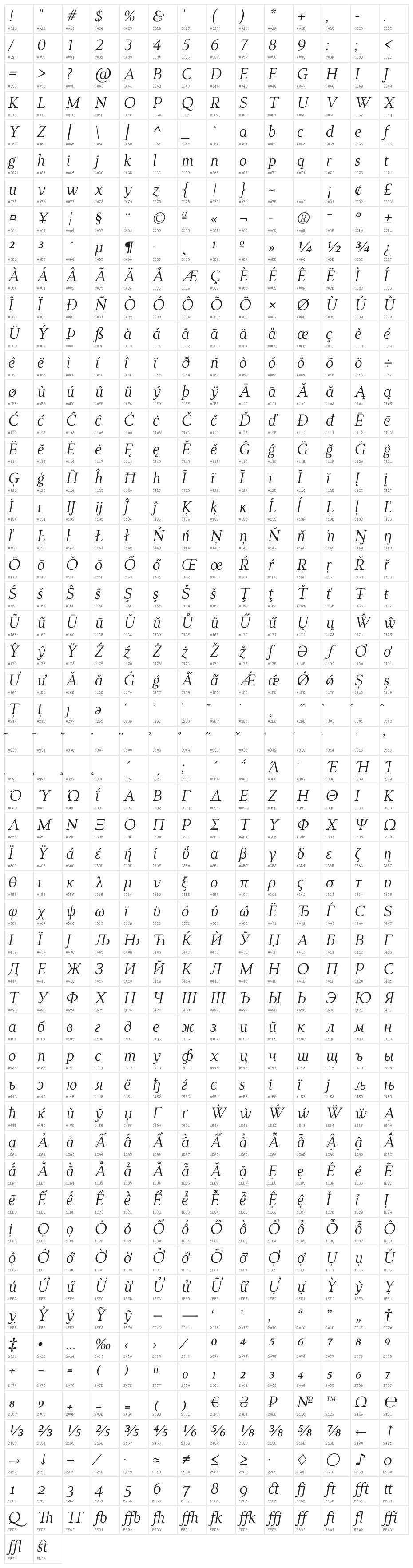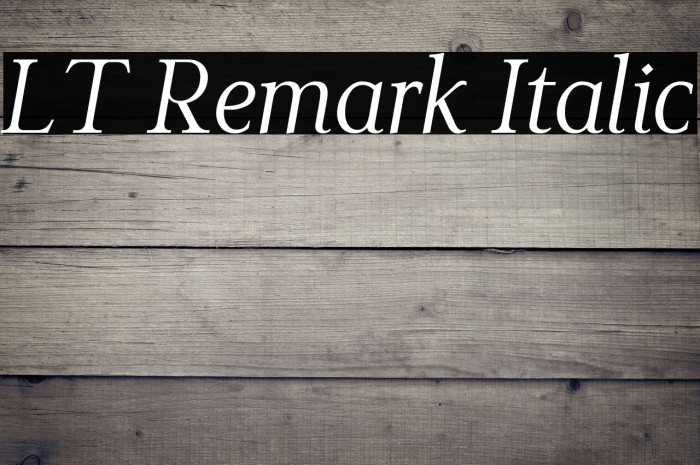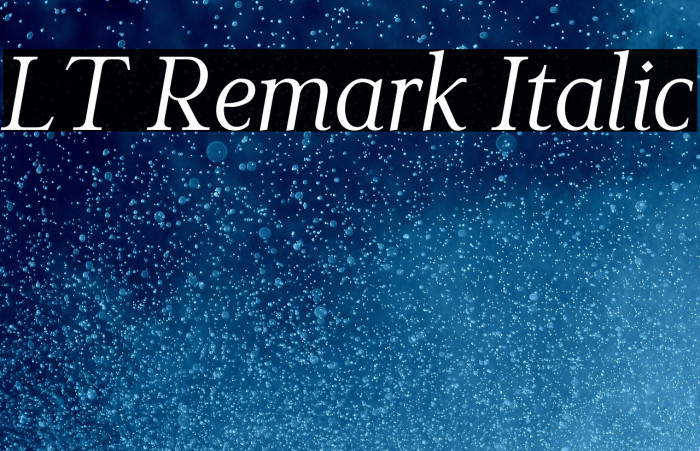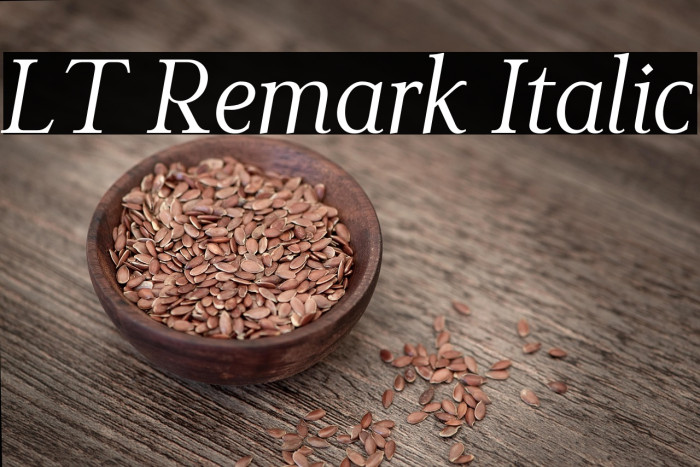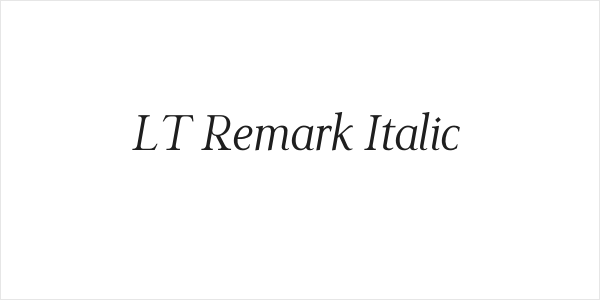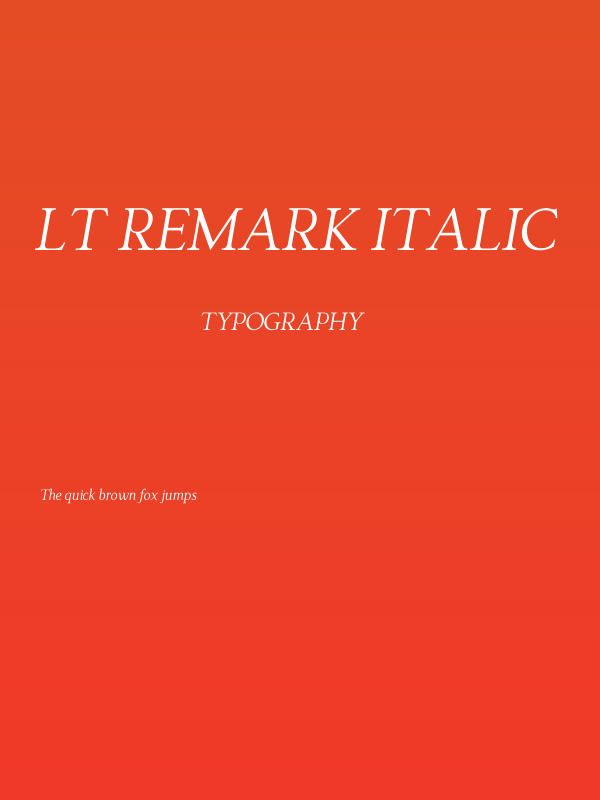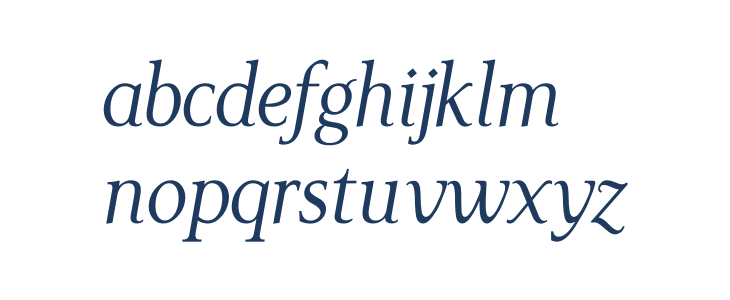
LT Remark Italic Font
LT Remark Italic Description
This font features an elegant and sophisticated italic style, characterized by its smooth and flowing letterforms. The serifs are subtle yet distinct, adding a touch of classic refinement. The uppercase letters are slightly taller than the lowercase, providing a balanced and harmonious appearance. The numerals are proportional, maintaining consistency with the overall design. Special characters are well-integrated, ensuring versatility in various applications. The font's graceful curves and moderate contrast in stroke thickness make it suitable for both formal and creative projects.